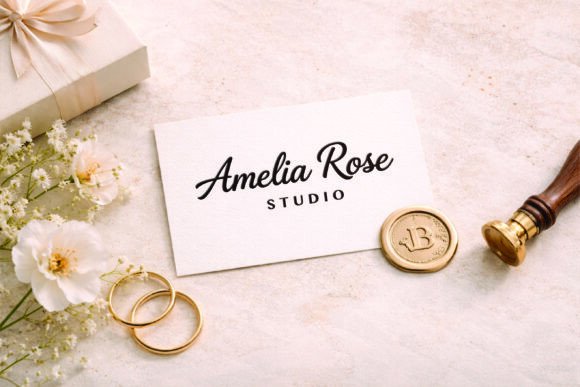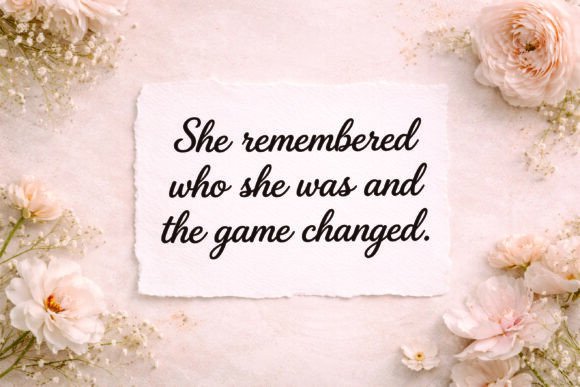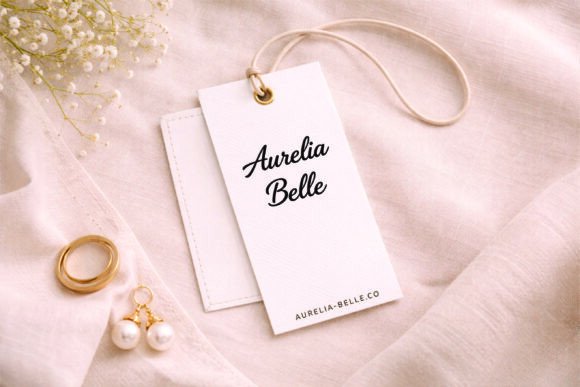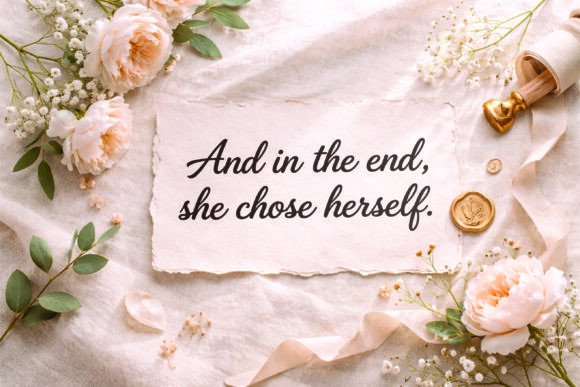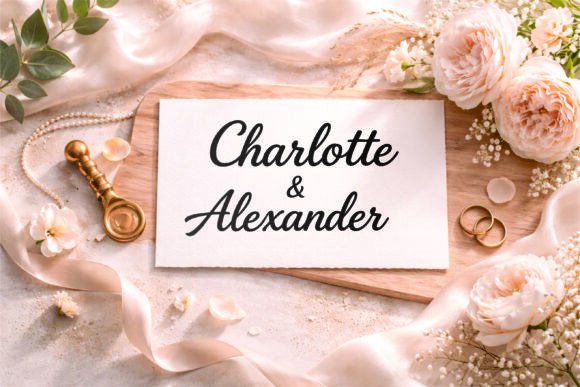
The Elegant Touch of Amelia Rose Font
As a designer, there’s nothing quite like the thrill of bringing a project to life. The blank page stares back at you, waiting for your creative spark to ignite. And then, it happens – the perfect combination of font, color, and imagery comes together, transporting your vision to the next level. For those seeking a refined and elegant touch, the Amelia Rose Signature font is the perfect catalyst.
This beautiful script font masterfully captures the essence of modern calligraphy, with a smooth, natural flow that’s both sophisticated and readable. With its perfect balance of luxury and approachability, Amelia Rose Font is ideal for high-end design projects, from wedding invitations to premium brand identities. Whether you’re aiming to create a romantic aesthetic or a premium brand identity, this font adds a timeless and feminine touch that’s sure to impress.
- Unique Characteristic: The Amelia Rose Font features a unique, elegant, and whimsical design with a mix of modern and vintage elements, making it perfect for creating a distinctive and eye-catching visual identity.
Amelia Rose Font Review
Initially, I was drawn to the Amelia Rose Font due to its elegant and feminine aesthetic. ✨ It’s perfect for designs that require a touch of sophistication and whimsy. The font’s cursive script and decorative flourishes add a unique charm to any text.
- The Amelia Rose Font excels in its ability to convey a sense of luxury and refinement, making it ideal for high-end branding and advertising.
- Its versatility allows for both digital and print applications, from website headers to wedding invitations.
- The font’s cursive script is highly legible, making it suitable for both short and long blocks of text.
However, there are a few limitations to consider. ⚠️ The Amelia Rose Font may not be the best choice for projects requiring a modern or minimalist aesthetic, as its ornate details may clash with such designs.
Overall, I would give the Amelia Rose Font a solid 4 out of 5 stars. While it may not be suitable for every project, its unique charm and elegance make it a valuable addition to any designer’s toolkit. With careful selection and application, the Amelia Rose Font can add a touch of sophistication and whimsy to even the most mundane designs.
Tips for Getting the Most Out of Amelia Rose Font
Use Amelia Rose Font for headings and titles to add a touch of elegance to your designs.
Pair Amelia Rose Font with a clean and simple design to let the font be the focal point.
Alternatives to Amelia Rose Font
Raleway
Raleway is a sans-serif font that is highly legible and versatile. It works well for body text and headings. When to use: Raleway is ideal for modern websites and applications where you want a clean and professional look. Compared to Amelia Rose, Raleway is more minimalist and has a more subtle feel, making it a great choice for projects where you want to focus on content rather than dramatic typography.